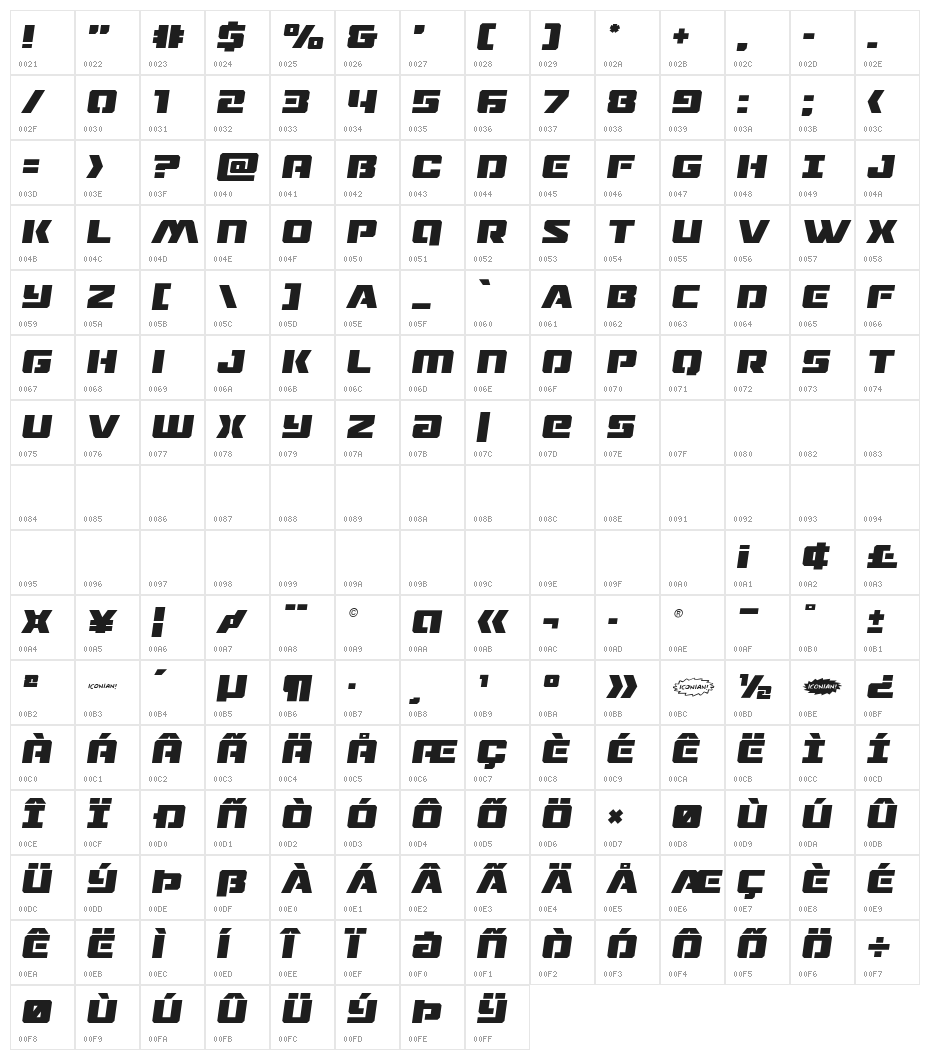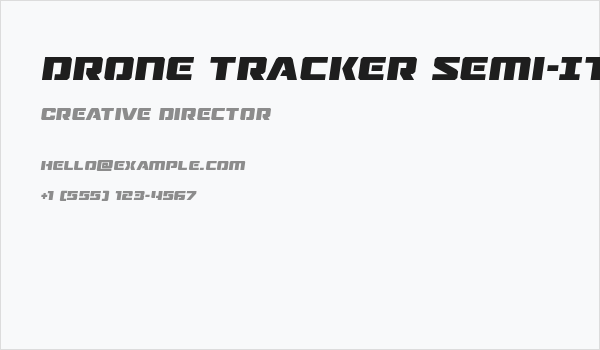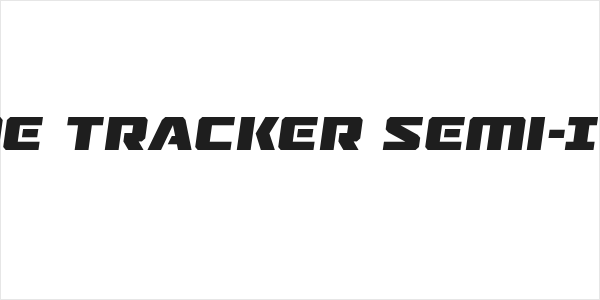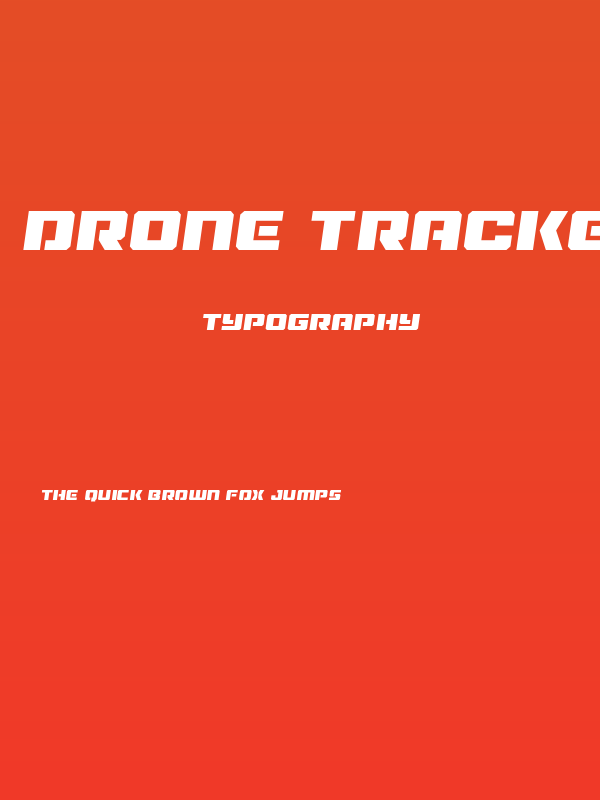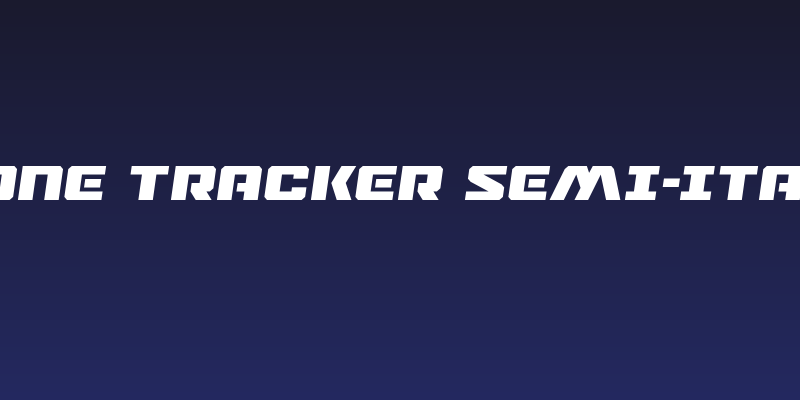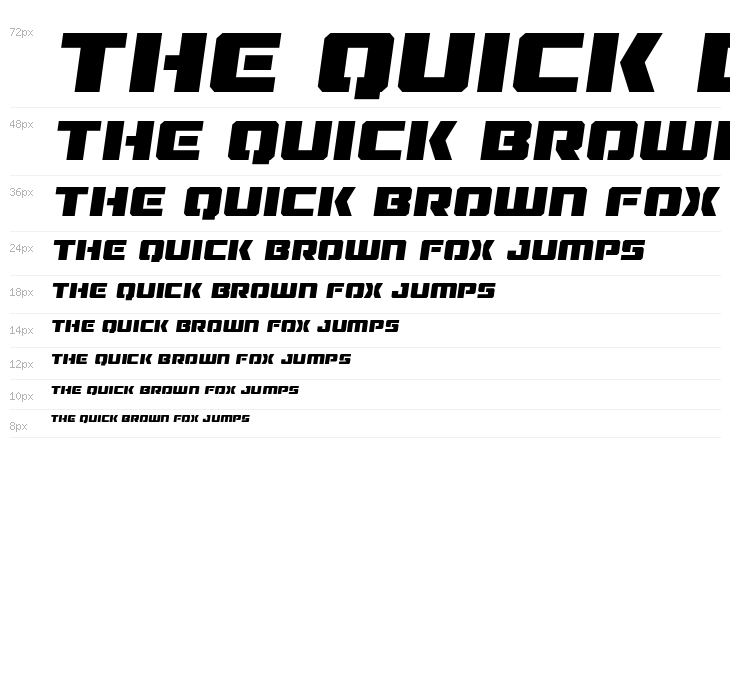
Drone Tracker Semi-Italic Font
Drone Tracker Semi-Italic Description
This font features a bold, angular design with a futuristic and dynamic appearance. The characters are slightly italicized, giving them a sense of motion and speed. The geometric shapes and sharp edges contribute to a modern and tech-inspired aesthetic. The uppercase and lowercase letters maintain a consistent style, with a strong emphasis on horizontal and vertical lines. Numbers and special characters are designed to match the overall theme, ensuring uniformity across all glyphs. The font's unique style makes it suitable for projects that require a bold and eye-catching typeface.
| Proposed Projects | Ideal for technology branding, video game titles, sci-fi movie posters, and sports team logos. |